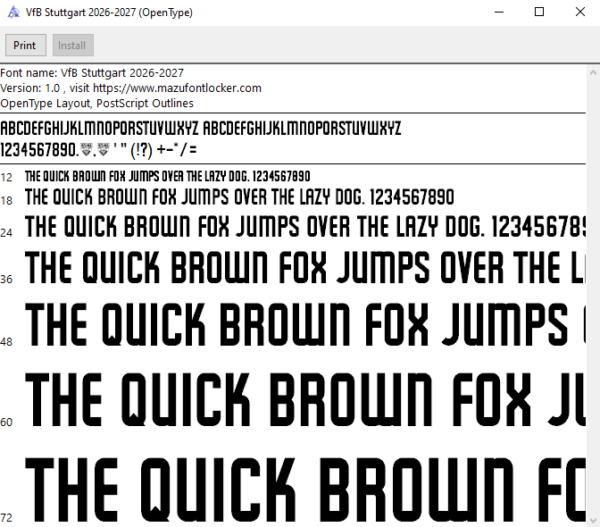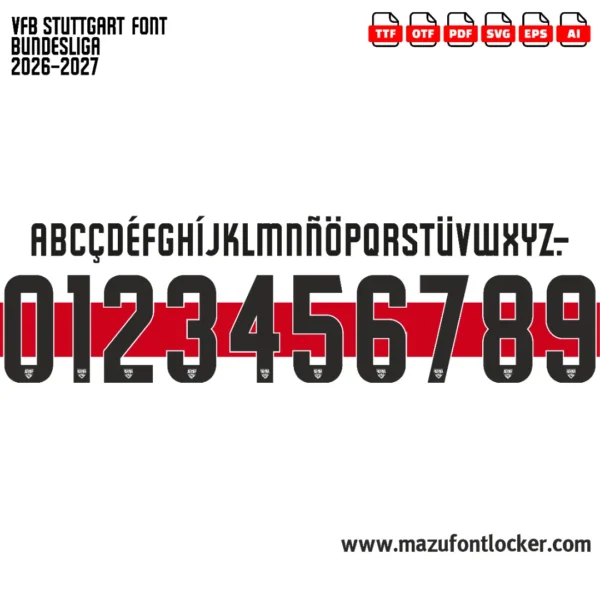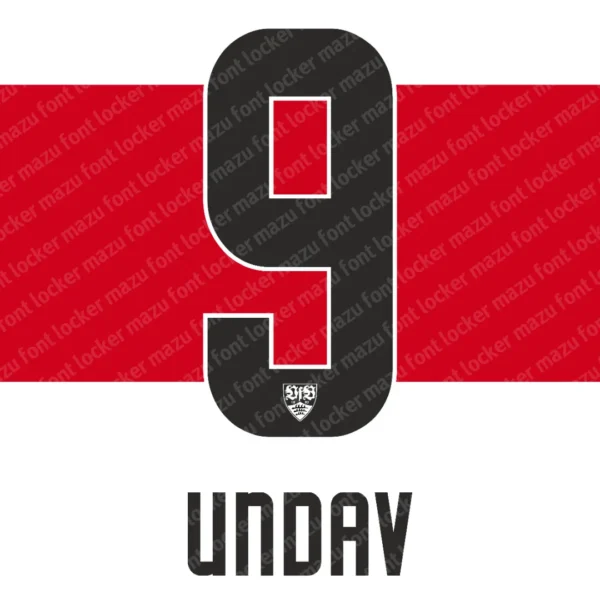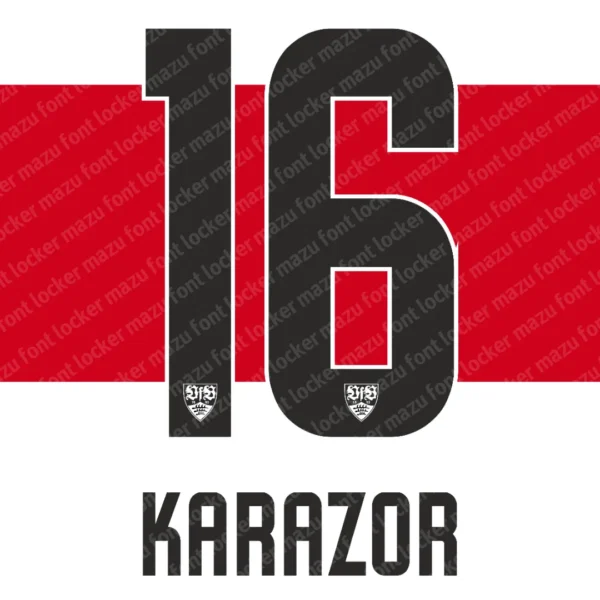
VfB Stuttgart 2026-2027 Font Vector – Stunning Swabian Giants Masterpiece
This font captures the commanding, historic, and precision-crafted lettering that perfectly reflects VfB Stuttgart’s legendary club identity, proud Swabian heritage, competitive Bundesliga mentality, and modern football excellence, delivering unmatched authenticity, premium quality, explosive energy, and elite German football style for professional jersey mockups, football graphics, sports branding, passionate fan creations, and high-end design projects.
VfB Stuttgart 2026-2027 Font Vector – Stunning Cannstatt Heritage Typeface
The VfB Stuttgart 2026-2027 Font Vector is a premium typeface that accurately recreates the official match lettering worn by VfB Stuttgart during the 2026-2027 season. This high-quality vector font kit captures the bold, elegant, and instantly recognizable typography that perfectly complements the club’s traditional white and red identity. :contentReference[oaicite:0]{index=0}
Designed for professional designers, football enthusiasts, and passionate Stuttgart supporters, the VfB Stuttgart 2026-2027 Font Vector delivers exceptional authenticity for creating realistic jersey mockups, football merchandise, social media graphics, match posters, and custom fan artwork. Every character has been carefully recreated to match the modern visual style associated with one of Germany’s most historic football clubs. :contentReference[oaicite:1]{index=1}
This font stands out thanks to its precise vector construction and authentic club styling. Every letter and numeral has been meticulously recreated to match the official shirt lettering used throughout the 2026-2027 Bundesliga campaign. Whether you’re producing professional kit templates or creating eye-catching football content, the VfB Stuttgart 2026-2027 Font Vector delivers a genuine match-ready appearance.
The lettering featured in the VfB Stuttgart 2026-2027 Font Vector combines clean geometric lines with powerful modern proportions. The result is a premium and highly readable typeface that reflects VfB Stuttgart’s proud tradition, competitive ambition, and strong connection with the Cannstatt culture.
• Complete uppercase A–Z alphabet and numbers 0–9 in authentic VfB Stuttgart 2026-2027 style
• Special VfB Stuttgart badge glyph – Press the “:” (Colon) key to insert the league badge
• Includes authentic Bundesliga badge glyph placement beneath player numbers
VfB Stuttgart 2026-2027 Season
The 2026-2027 campaign sees VfB Stuttgart competing in the Bundesliga while continuing its pursuit of domestic success and European ambitions. Wearing their iconic white and red colors, Stuttgart continues to represent the football tradition of Baden-Württemberg with a modern and ambitious approach. The club has confirmed its participation in the 2026-2027 Bundesliga season and continues building on its recent progress. :contentReference[oaicite:2]{index=2}
With a rich history including Bundesliga championships and memorable domestic achievements, VfB Stuttgart remains one of Germany’s most respected football institutions. The official 2026-2027 match lettering gives every jersey a premium appearance that perfectly matches the club’s historic identity and modern football vision.
The VfB Stuttgart 2026-2027 Font Vector is an independently designed typeface package inspired by the official shirt lettering worn during the 2026-2027 season. It has been carefully recreated for football enthusiasts, graphic designers, collectors, and creators producing custom jersey concepts, football artwork, and fan-made projects.